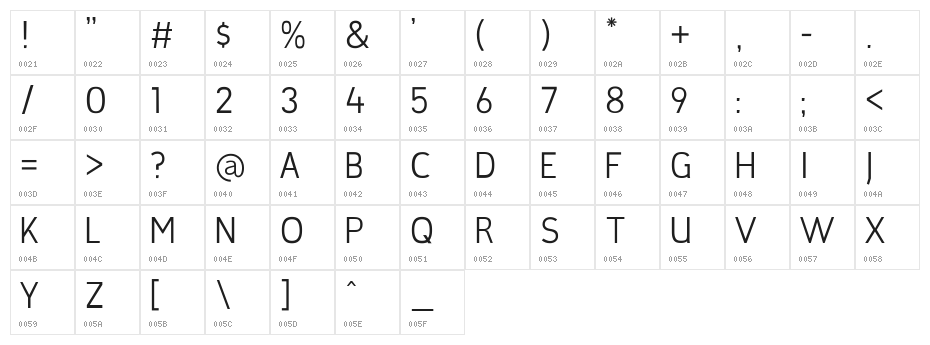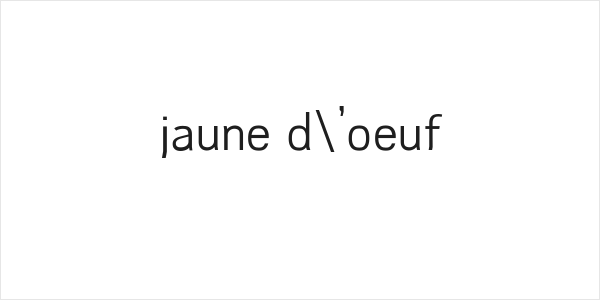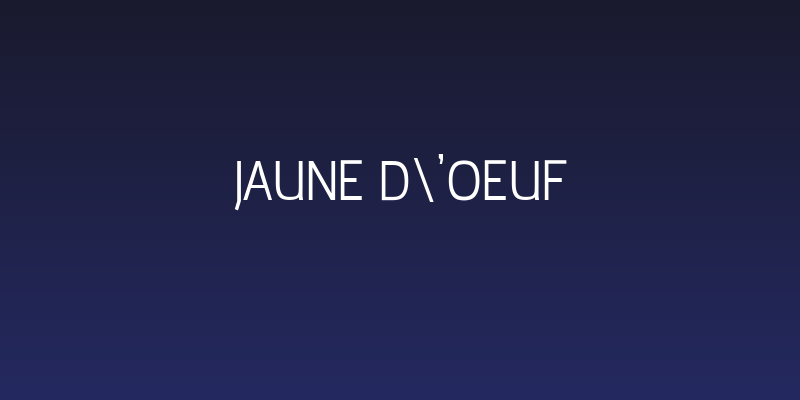
jaune d'oeuf Font
jaune d'oeuf Description
This font features a clean and modern sans-serif design, characterized by its geometric shapes and uniform stroke widths. The uppercase letters are tall and slightly condensed, giving a sleek and professional appearance. The lowercase letters maintain a consistent height, enhancing readability. The numerals are straightforward and align well with the overall style, making them suitable for various applications. Special characters are well-defined, adding versatility to the font. The overall design is minimalistic, focusing on clarity and functionality.